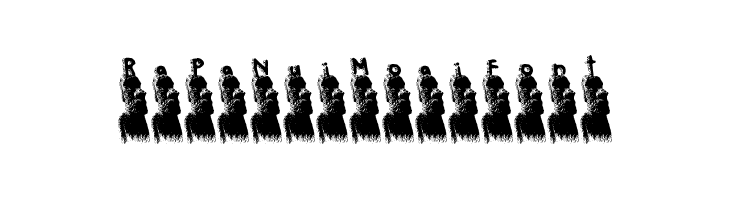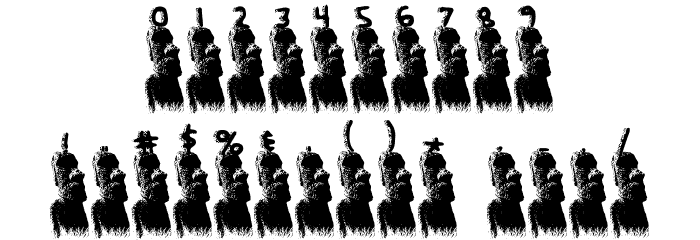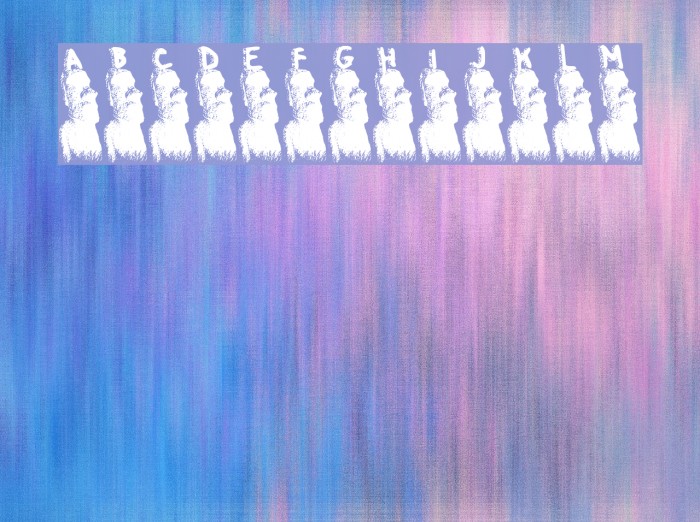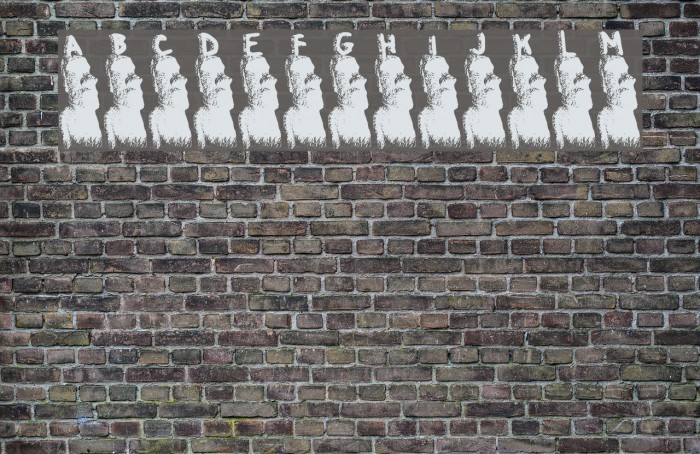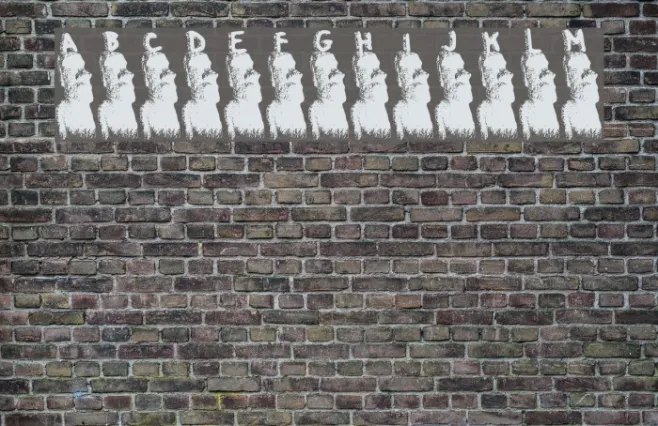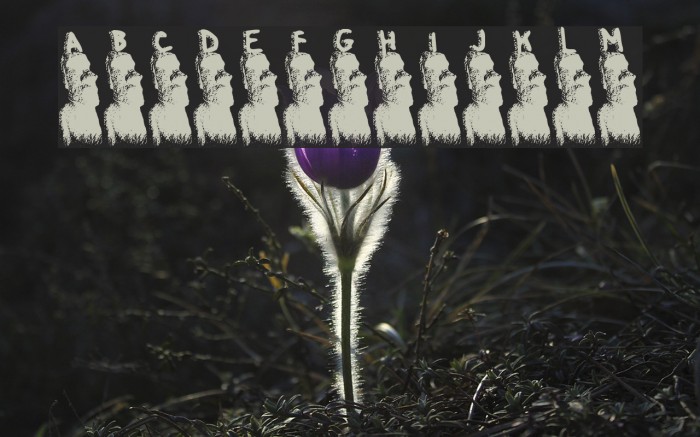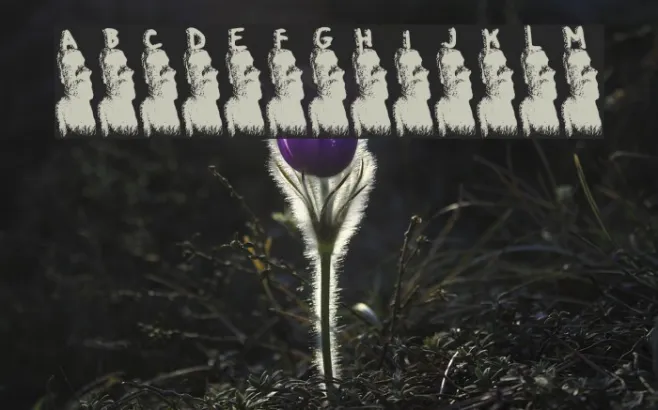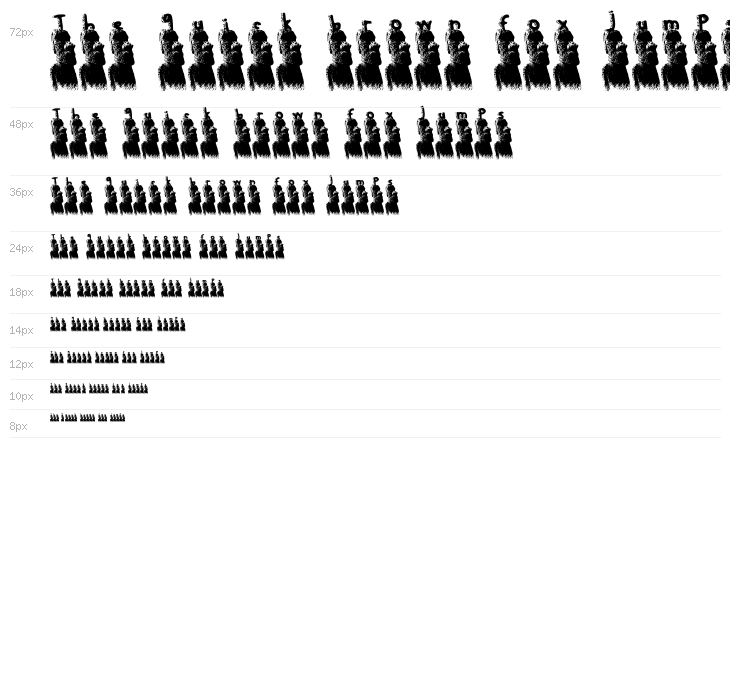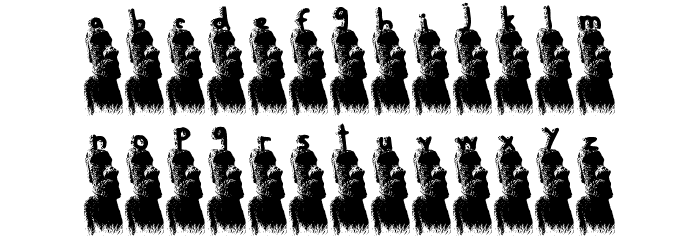
RapaNuiMoaiFont Font
RapaNuiMoaiFont Description
This unique and artistic font is inspired by the iconic Moai statues of Easter Island. Each character is creatively integrated into the silhouette of a Moai figure, giving the font a distinct and cultural aesthetic. The bold and solid forms of the letters are contrasted with the textured, stone-like appearance of the Moai, creating a visually striking effect. The font maintains a consistent height and width across all characters, ensuring uniformity while allowing the intricate details of the Moai design to stand out. This font is perfect for projects that require a touch of cultural heritage and artistic flair.
| Proposed Projects | Ideal for cultural exhibitions, artistic posters, themed events, and educational materials about Easter Island. |